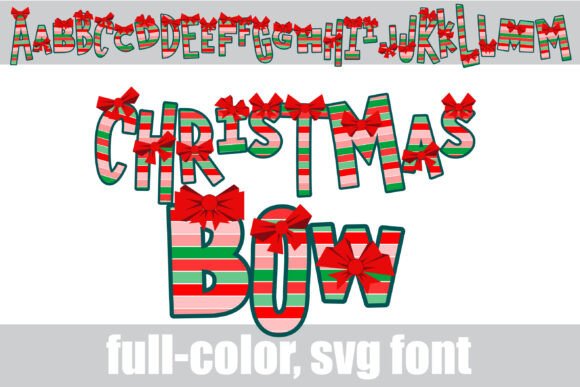
Christmas Bow Font: Add a Touch of Festivity to Your Designs
The Christmas Bow Font is a fun and festive full-color font that features striped, sans serif lettering with big red bows. This font is perfect for adding a touch of personality to your designs, especially during the holiday season. In this article, we’ll take a closer look at the features of the Christmas Bow Font, its compatibility with different programs, and how to install and use it.
Features of the Christmas Bow Font
The Christmas Bow Font is a unique and eye-catching font that features striped, sans serif lettering with big red bows. The font comes in two versions: a main version and an alt version that can be accessed through your system’s character map. The alt version contains additional colors of all the letters, giving you even more creative options.
This font is perfect for titles, displays, posters, and more. The big red bows add a touch of festivity and whimsy, making it ideal for holiday-themed designs. The font is also versatile and can be used for a variety of design projects, from simple text logos to complex illustrations.
Benefits of Using Full-Color SVG Fonts
Full-color SVG fonts, like the Christmas Bow Font, offer a range of benefits for designers. Here are some of the advantages of using full-color SVG fonts:
- Scalability: SVG fonts are vector-based, which means they can be scaled to any size without losing quality. This makes them perfect for designs that need to be resized, such as logos, posters, and banners.
- Color range: Full-color SVG fonts offer a wide range of colors and styles to choose from. This gives designers the flexibility to create unique and eye-catching designs that stand out.
- Personality: Full-color SVG fonts can add a touch of personality to your designs. With a range of colors and styles to choose from, you can create designs that reflect your brand’s personality and style.
Using the Christmas Bow Font in Your Designs
The Christmas Bow Font is a versatile font that can be used in a variety of design projects. Here are some ideas for using the font in your designs:
- Holiday-themed designs: The Christmas Bow Font is perfect for holiday-themed designs, such as Christmas cards, posters, and social media graphics.
- Logos and branding: The font can be used to create unique and eye-catching logos and branding materials, such as business cards and letterheads.
- Posters and banners: The font is ideal for posters and banners, especially those that require a bold and eye-catching headline.
Tips for Getting the Most Out of the Christmas Bow Font
Here are some tips for getting the most out of the Christmas Bow Font:
- Experiment with different colors: The font comes in a range of colors, so experiment with different combinations to find the one that works best for your design.
- Use it sparingly: The Christmas Bow Font is a bold and eye-catching font, so use it sparingly to avoid overwhelming your design.
- Pair it with other fonts: The font can be paired with other fonts to create a unique and visually appealing design.
The Christmas Bow Font is a fun and festive full-color font that can add a touch of personality to your designs. With its striped, sans serif lettering and big red bows, it’s perfect for holiday-themed designs, logos, posters, and more. By understanding its features, compatibility, and installation process, you can get the most out of this versatile font and create unique and eye-catching designs.